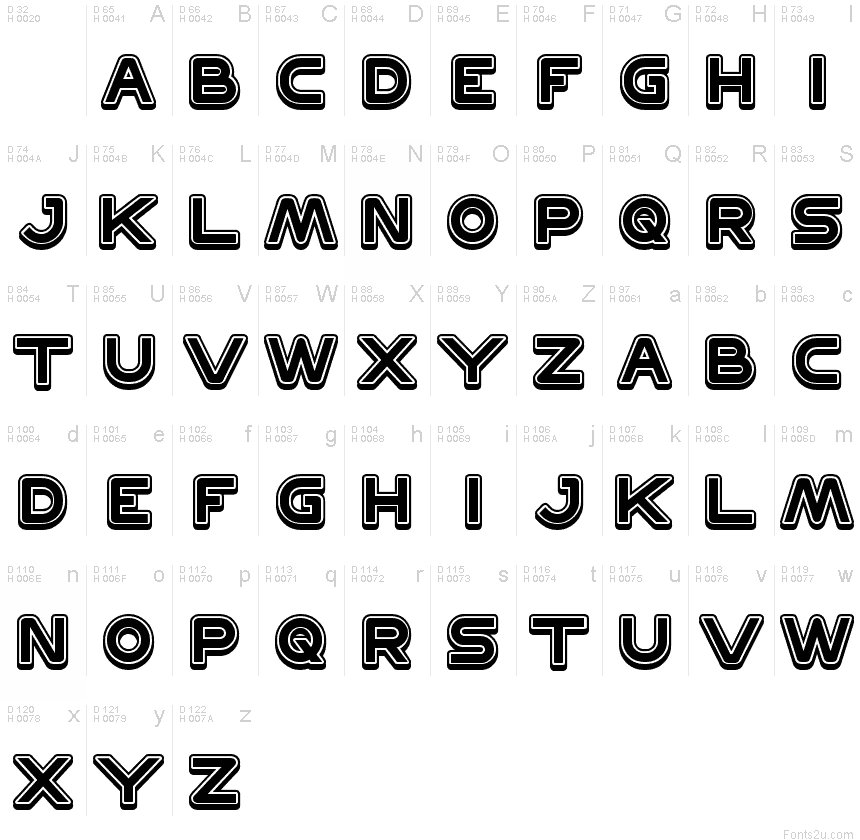
Discovery by Weknow is a free 3D display font whose broad, rounded capitals combine geometric structure with the chunky proportions of commercial sign lettering. A slim inner line and offset extrusion suggest molded signage.
The layered contours share a cut-vinyl look with outlined sports graphics and product labels, linking the font naturally to burger packaging, arcade posters, team merchandise, and bowling-night flyers. Its strongest role is as the logo for a casual food brand or retro entertainment venue, where the letters can resemble fabricated plastic signage above a busy counter.